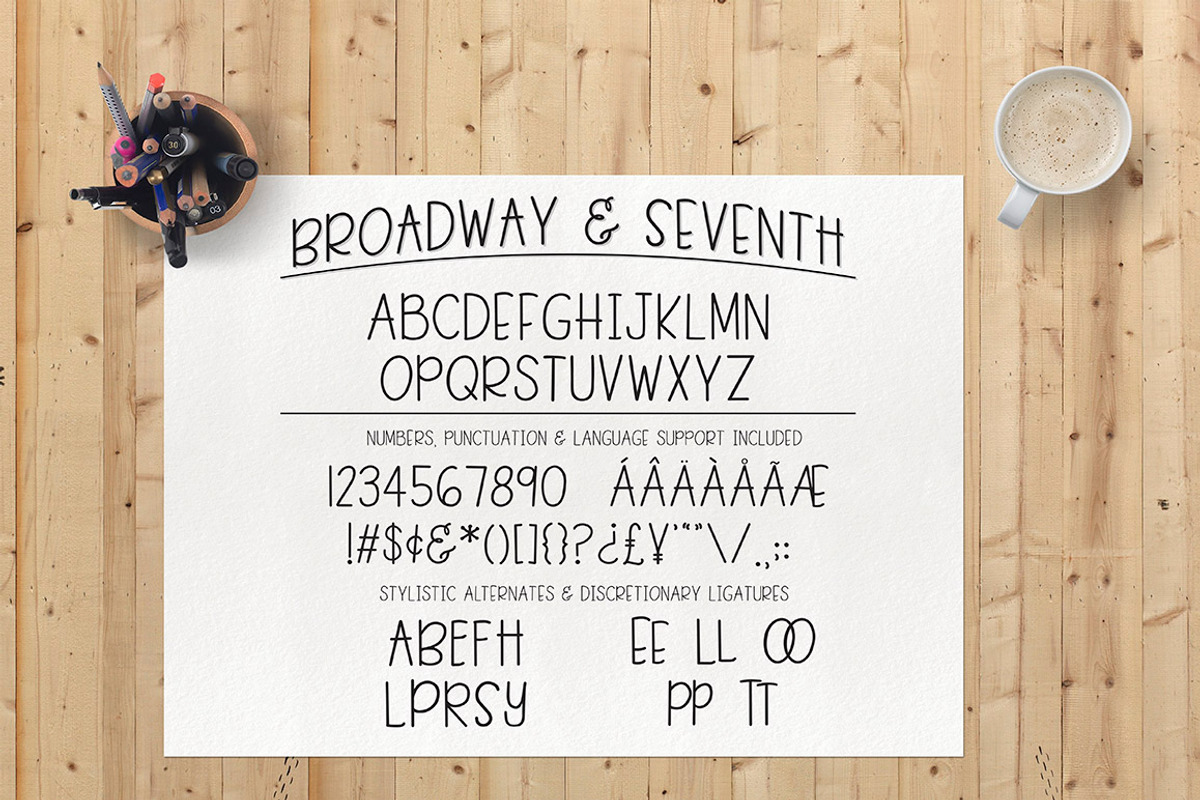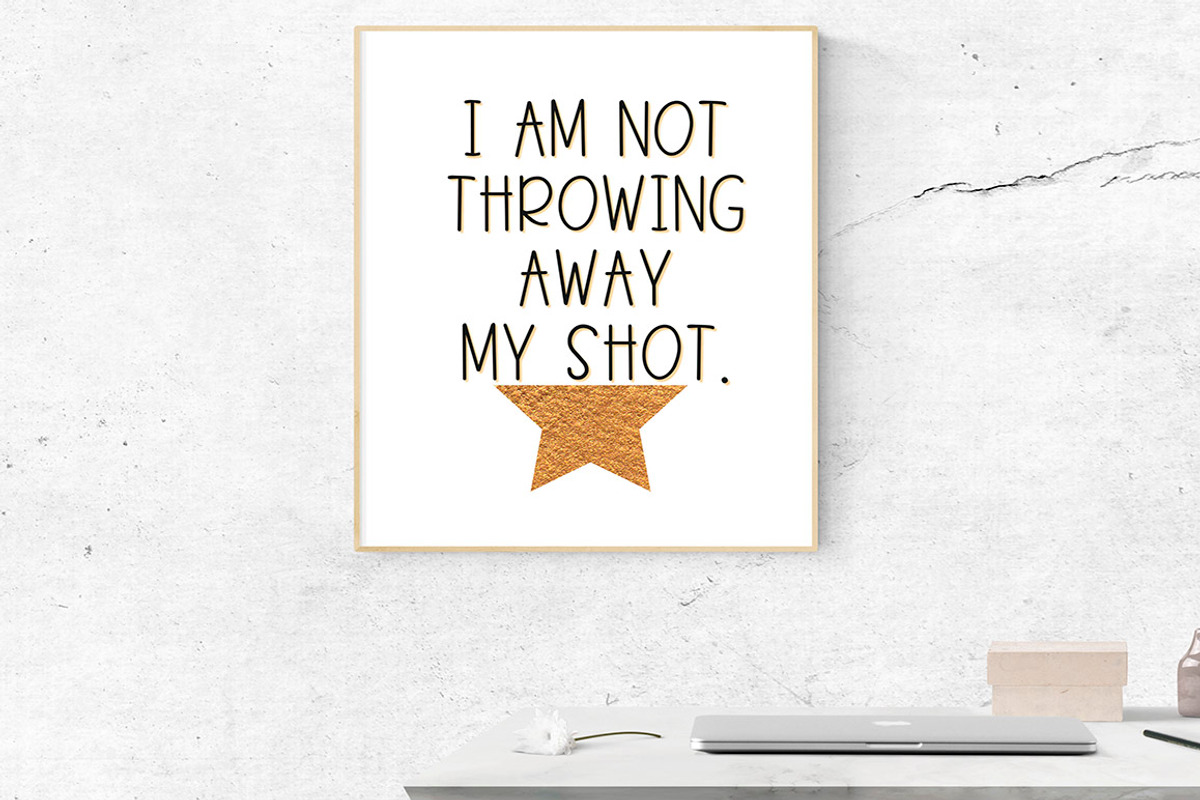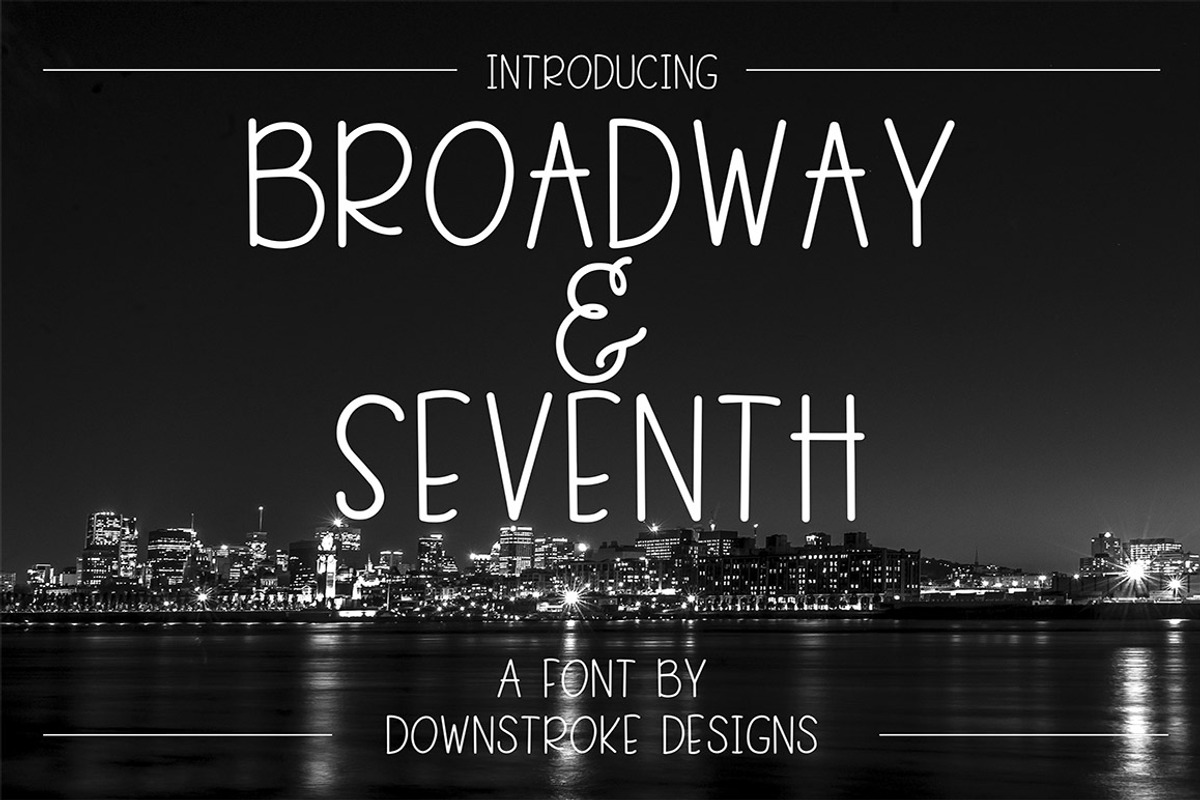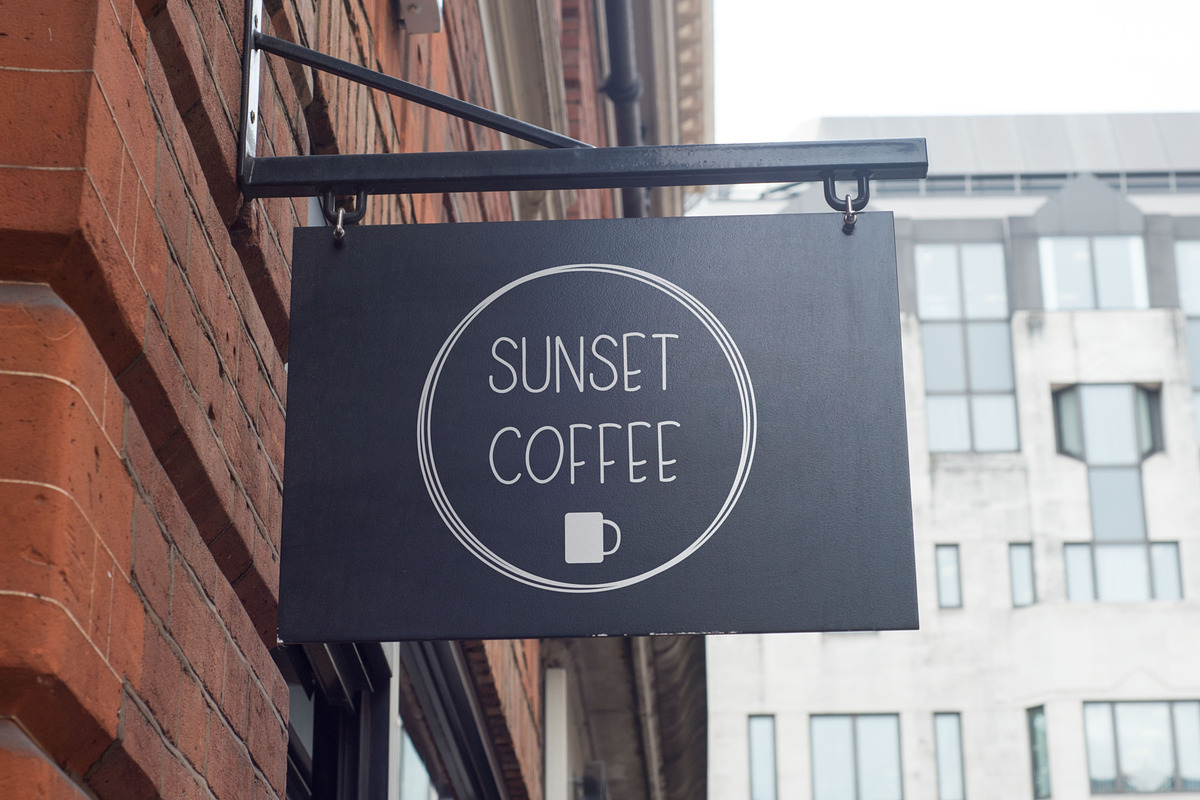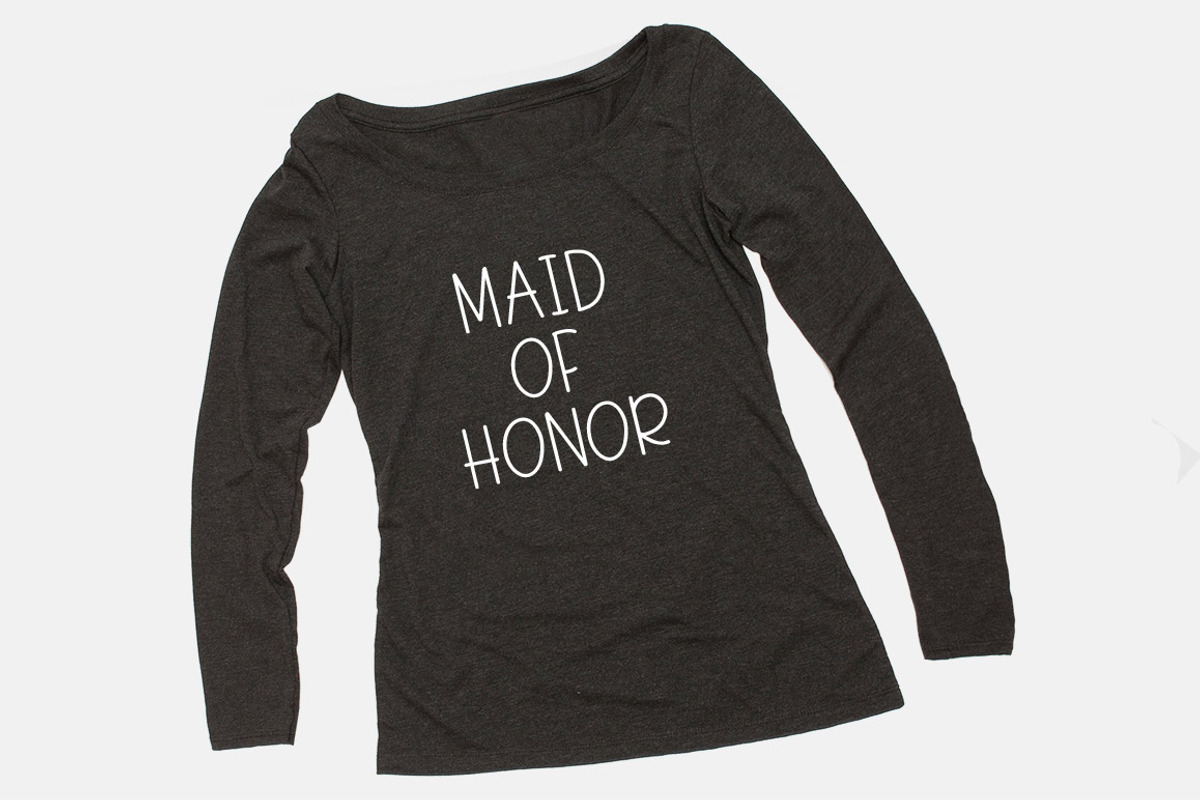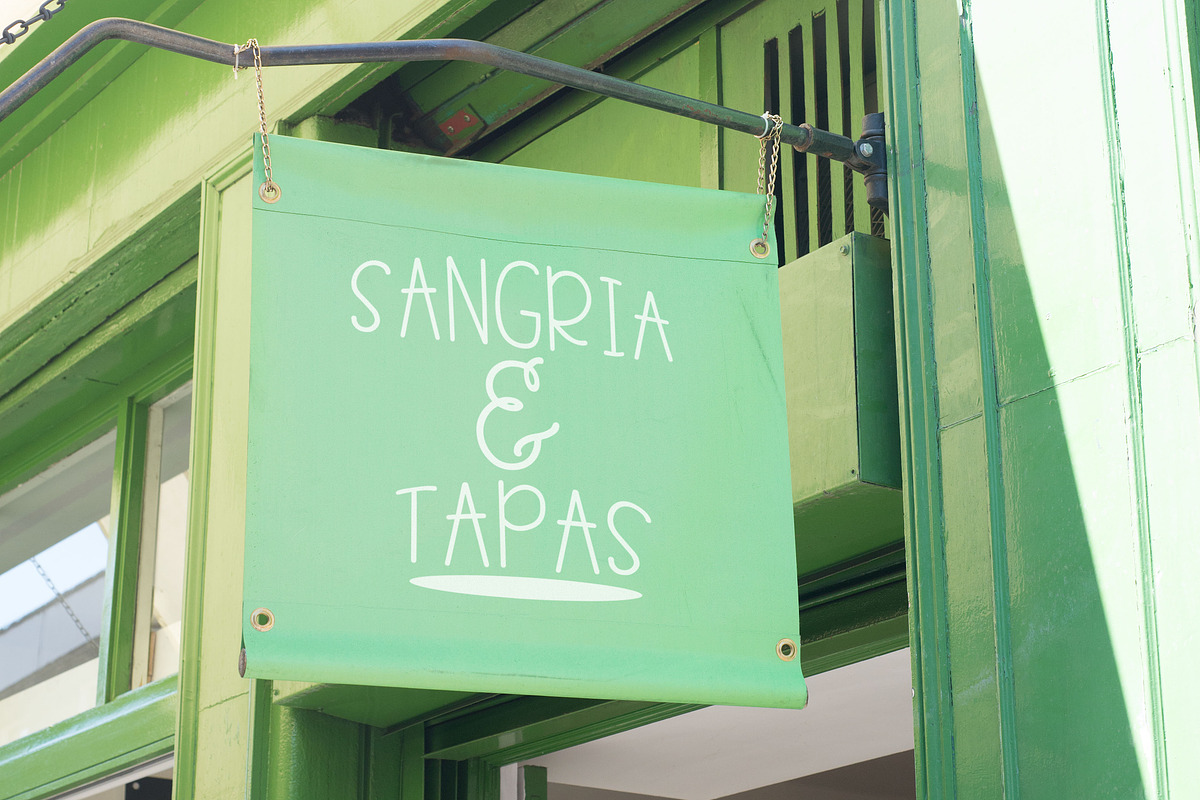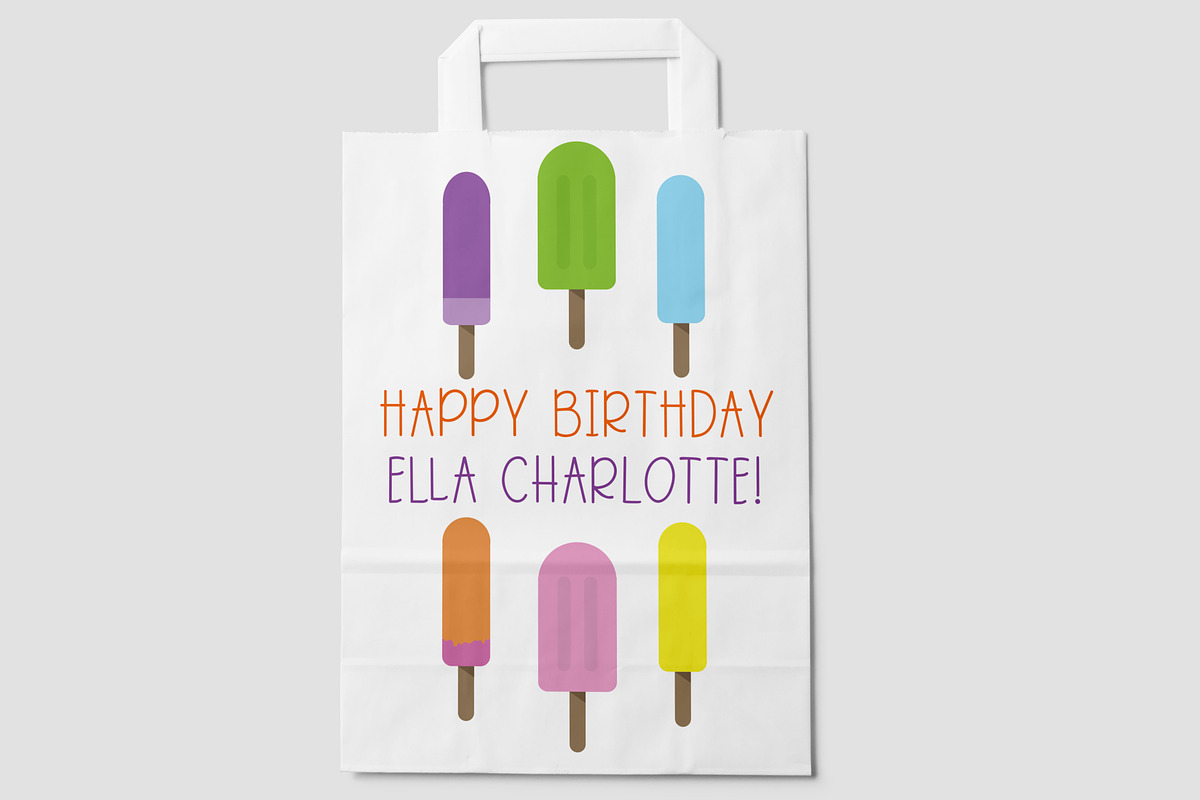
Broadway & Seventh Font
Broadway & Seventh is a handwritten mono line font designed by Katie from Downstroke Designs. This font is a clean, modern, sans serif font that can be used on it’s own, or paired with other script or serif fonts. This font is great for kid products, signs, tee-shirts, social media posts and websites. This would also be a great font for teachers to use on handouts, newsletters and worksheets. It's legible and fun but has clean lines. It can be customized using the different stylistic features that are offered.
Broadway & Seventh has over 200 characters including multilingual support for Western European Languages! Your download will include an OTF file and a TTF file.
- Broadway & Seventh has over 200 characters including multilingual support for Western European Languages!